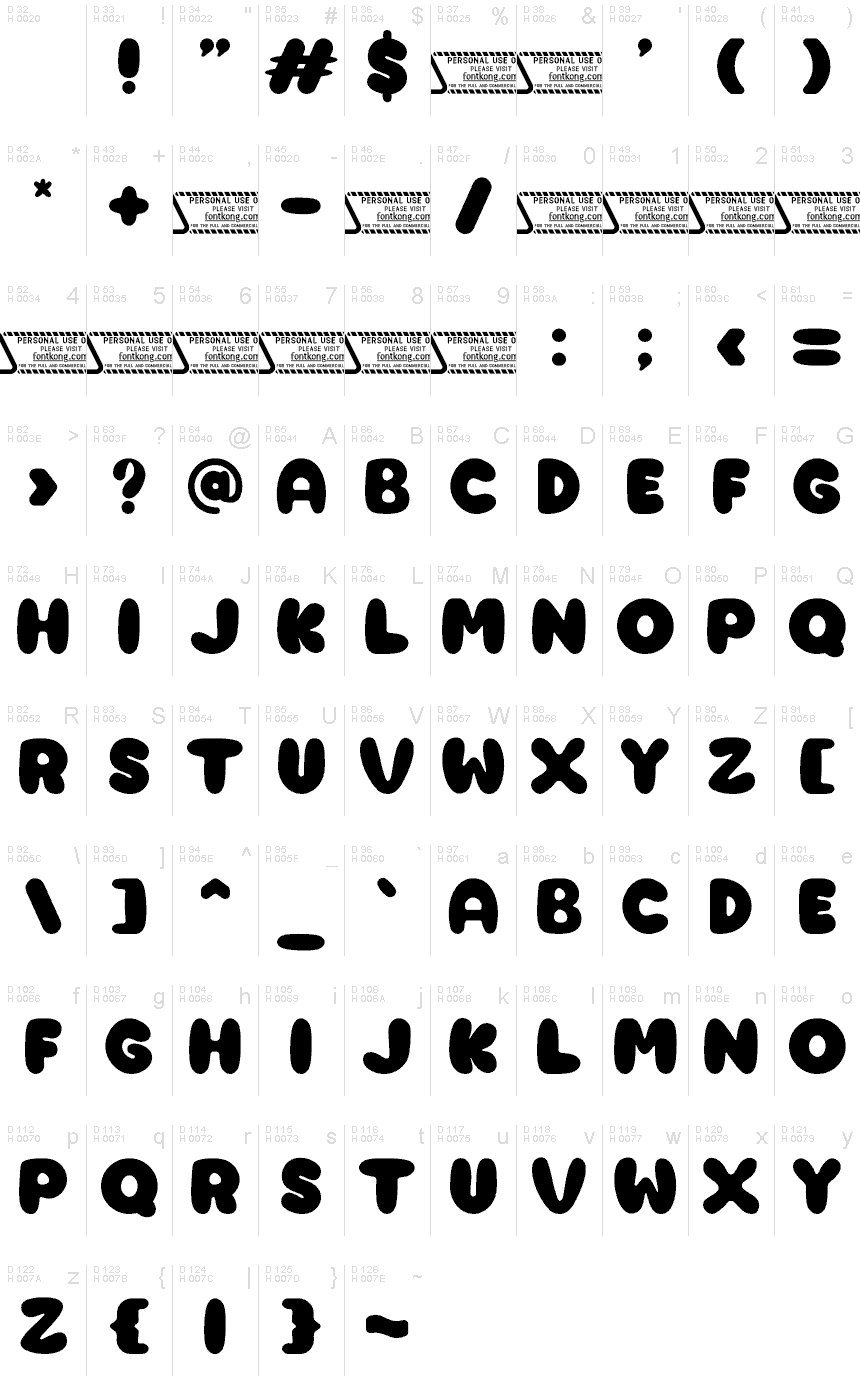
Bubble Gum
Bubble Gum font by Kong Font is a cartoon display font inspired by retro influence and rounded smooth shapes. With its friendly, bold appearance and whimsical style, this approachable type achieves a unique casual mood for different projects. The all-caps letters have inflated shapes, almost bubble-like which is what makes this font reminiscent of old cartoons.
Because of the amazing feel, this free display font can work in posters, ads, marketing oddities, social media content such as thumbnails or posts. Titles and headlines of books or magazines will look equally great in it as well. When used on packaging items like soda can designs it will add a unique identity to such products.